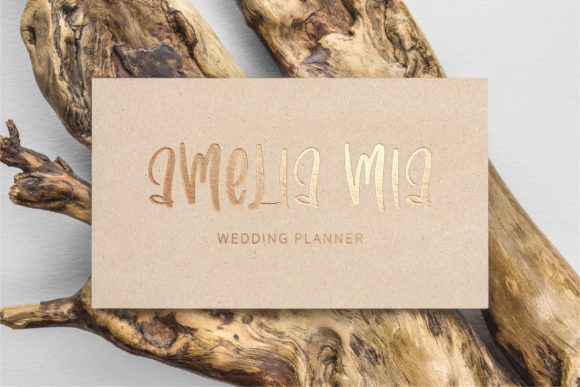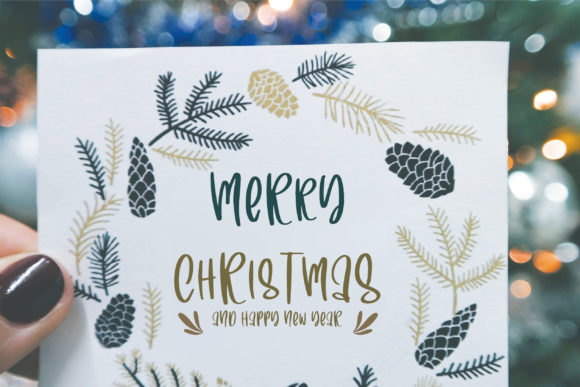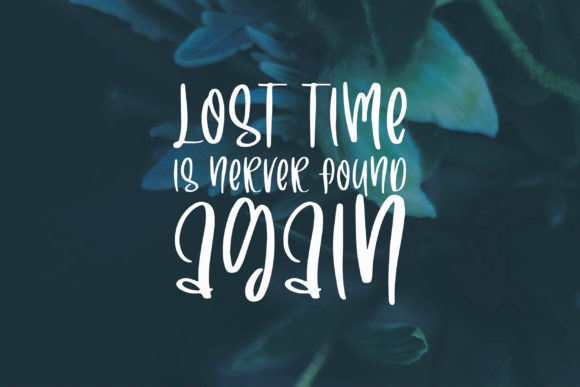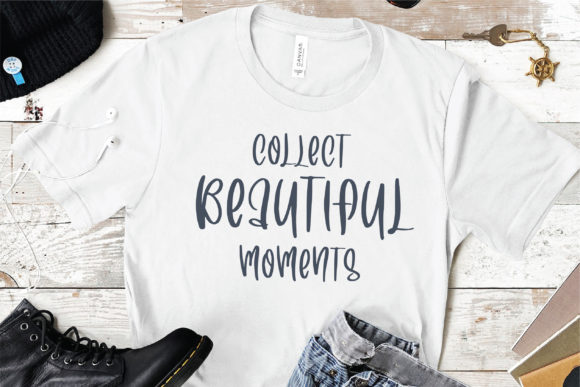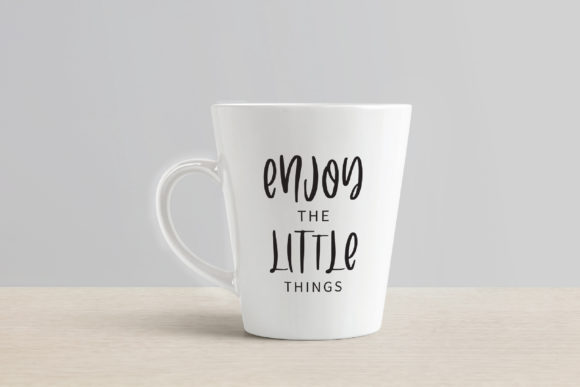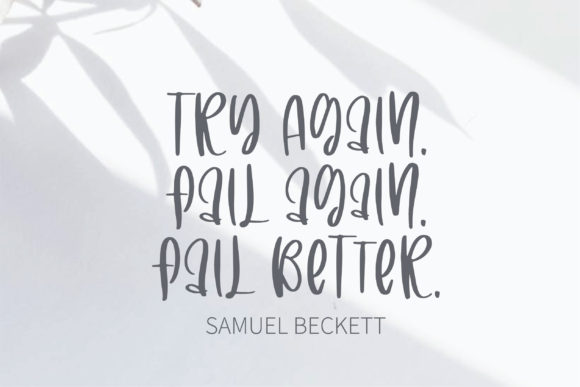
Introduction to My Diary Font
Have you ever stared at a blank page, struggling to bring your creative project to life? I’m sure we’ve all been there – brainstorming ideas, searching for the perfect design resource, and hoping to create something truly unique. But what if I told you there’s a secret to making your designs stand out from the crowd? Enter the world of typography, where a simple yet effective font can make all the difference.
| 👤 Author | BitongType |
Among the many fonts available, one stands out for its quirky charm and versatility – My Diary Font. This free download is a game-changer for designers, offering a high-quality, handwritten style that’s perfect for a wide range of creative projects. With its transparent background, you can easily incorporate it into your designs, adding a personal touch that’s hard to replicate with other fonts.
Key Features of My Diary Font
- High-quality, elegant font design perfect for a creative project, ideal for journaling, scrapbooking, or any other personal expression.
- Transparent background, allowing for seamless integration with any design resource, including digital art, graphics, or photographs.
- Comes in a single size, 200 DPI, and 300 DPI resolution, ensuring crisp and clear readability on various devices and mediums.
- Unique, handwritten style with subtle flair, adding a touch of personality to any design, making it a great addition to any creative project.
Honest Review: My Diary Font
As a designer, I’ve come across numerous fonts for creative projects, but My Diary Font stands out for its unique charm. Upon closer inspection, I noticed the transparent background, which adds an extra layer of versatility to this design resource.
Here are some aspects that work well with My Diary Font: ✨
- Unique and cursive design that adds a touch of elegance to any project
- High quality and detailed typography
However, I did encounter some limitations: ⚠️
- Limited character set, which might not be suitable for longer texts
- No bold or italic variants, which could be beneficial for emphasis
Overall, My Diary Font is a great addition to any designer’s toolkit. Its free download and high-quality design make it an excellent choice for small projects or creative endeavors. While it may have some limitations, its unique charm and transparent background make it a valuable design resource.
Tips for Getting the Most Out of My Diary Font
My Diary Font is a versatile design resource that can be used in a variety of ways. Here are a few tips for getting the most out of it:
1. Use it on a transparent background to create a beautiful, eye-catching design.
2. Experiment with different font sizes and styles to create a unique look.
3. Use it in combination with other design elements to create a cohesive design.
Common Use Cases for My Diary Font
My Diary Font is a popular design resource that can be used in a variety of creative projects. Here are a few common use cases: